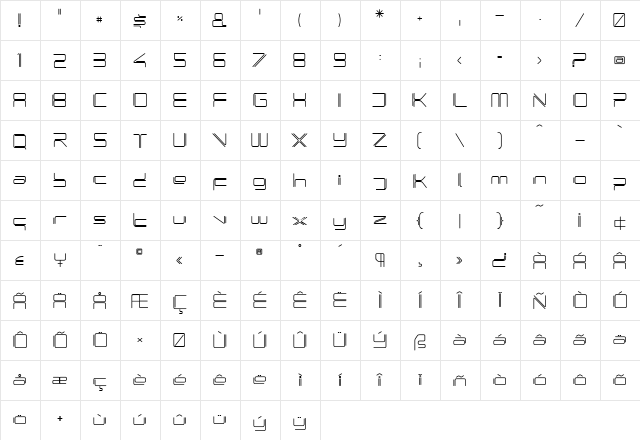
PhutureRndOpen Plain
Design Context for PhutureRndOpen Typeface
PhutureRndOpen offers clean, dependable letterforms without strong stylistic allegiance, making it a practical choice for designers who need flexibility.